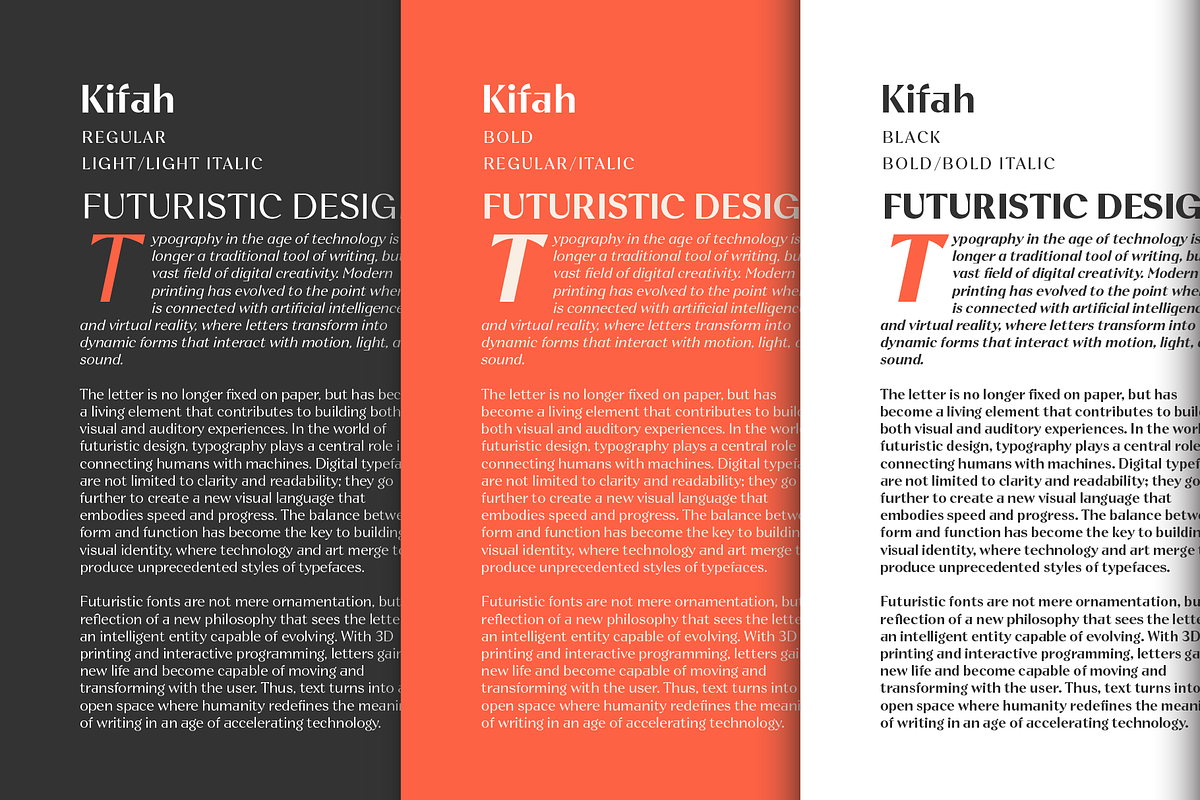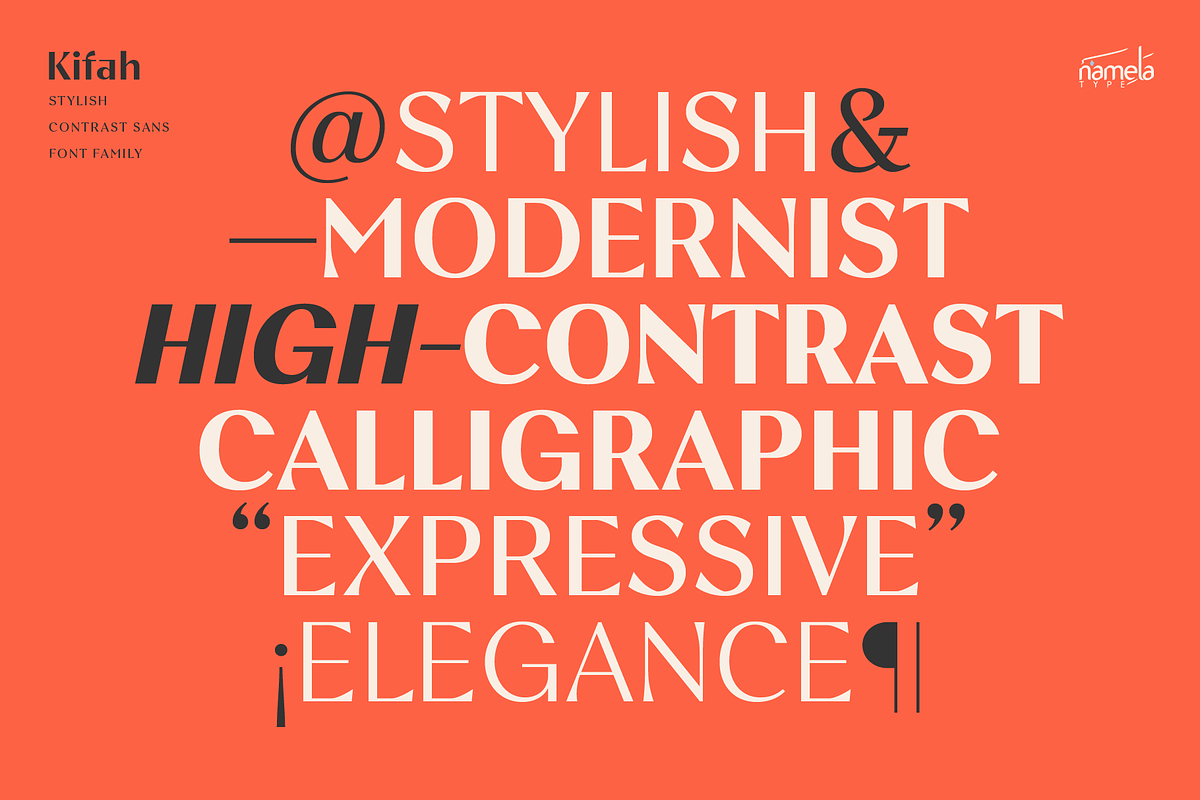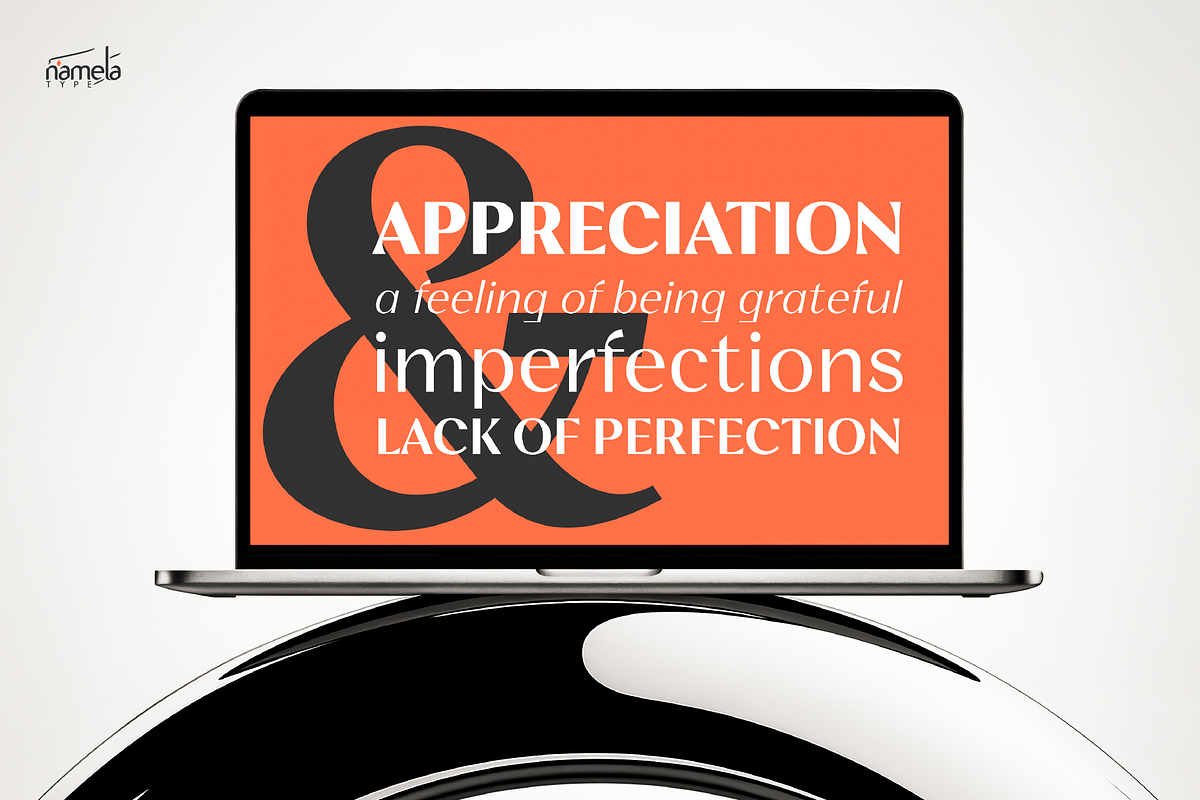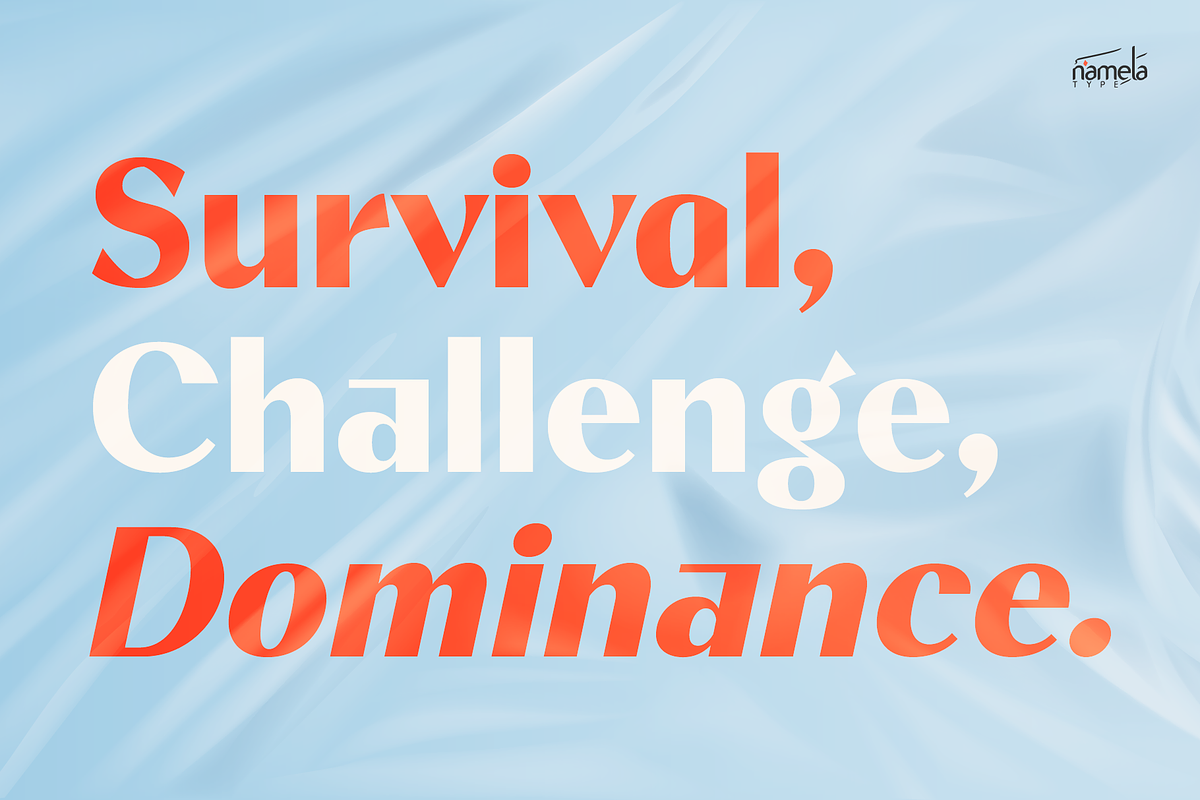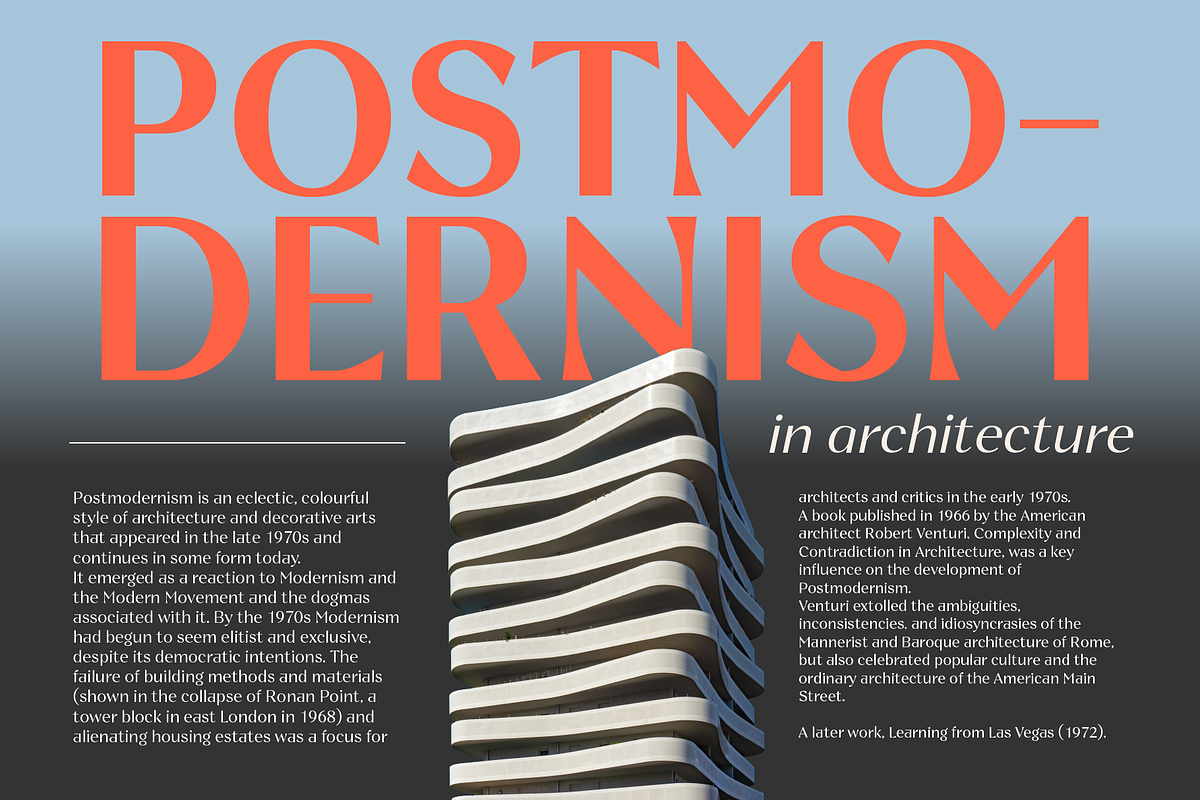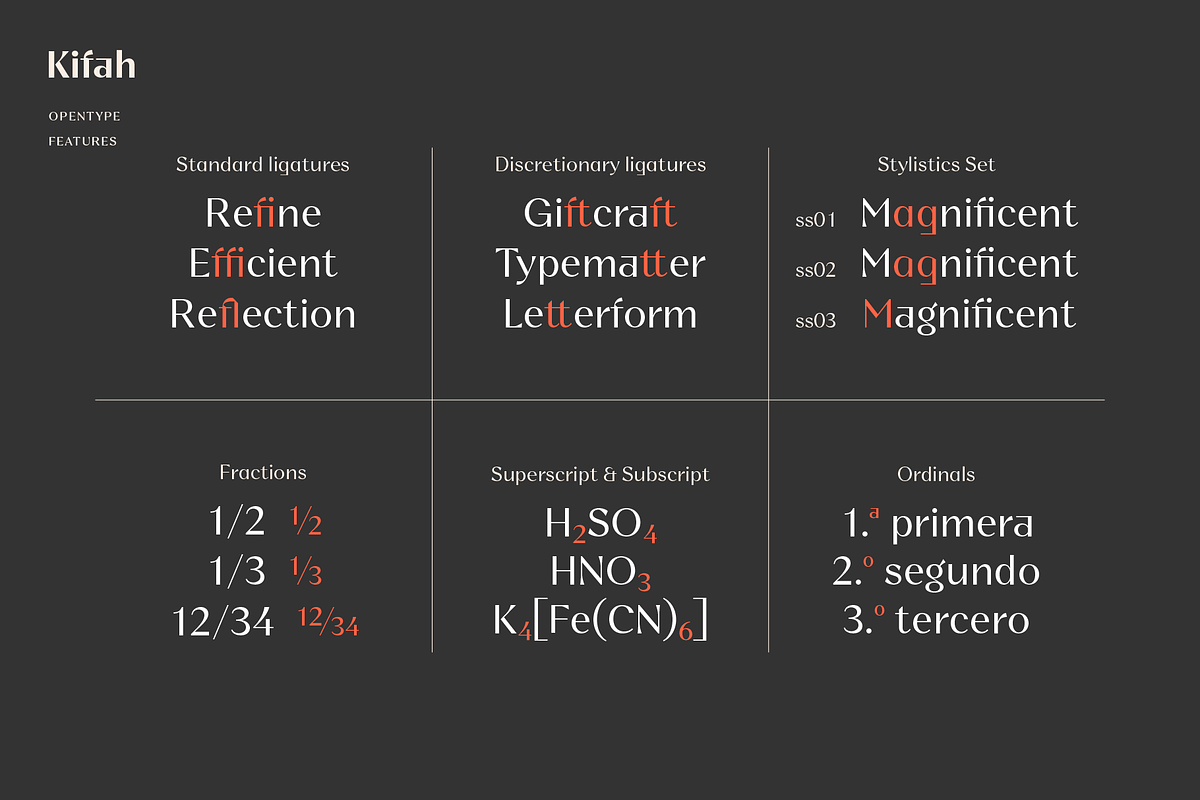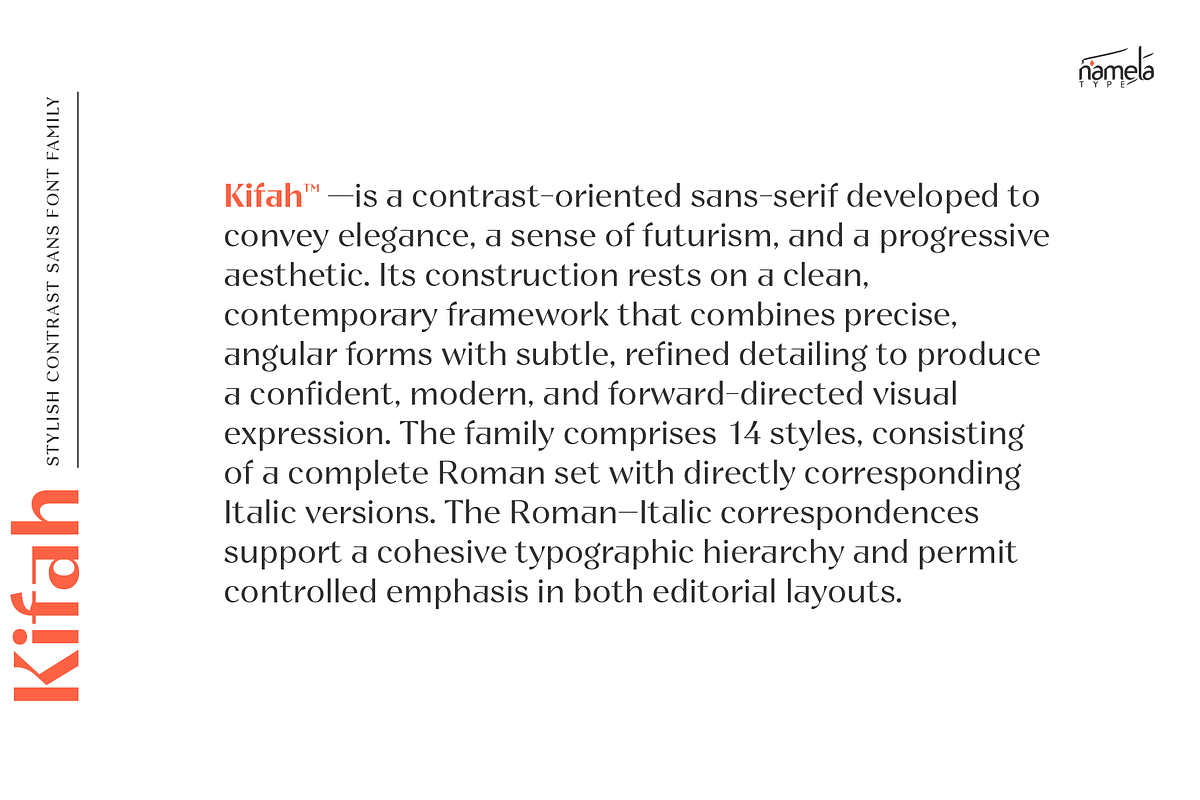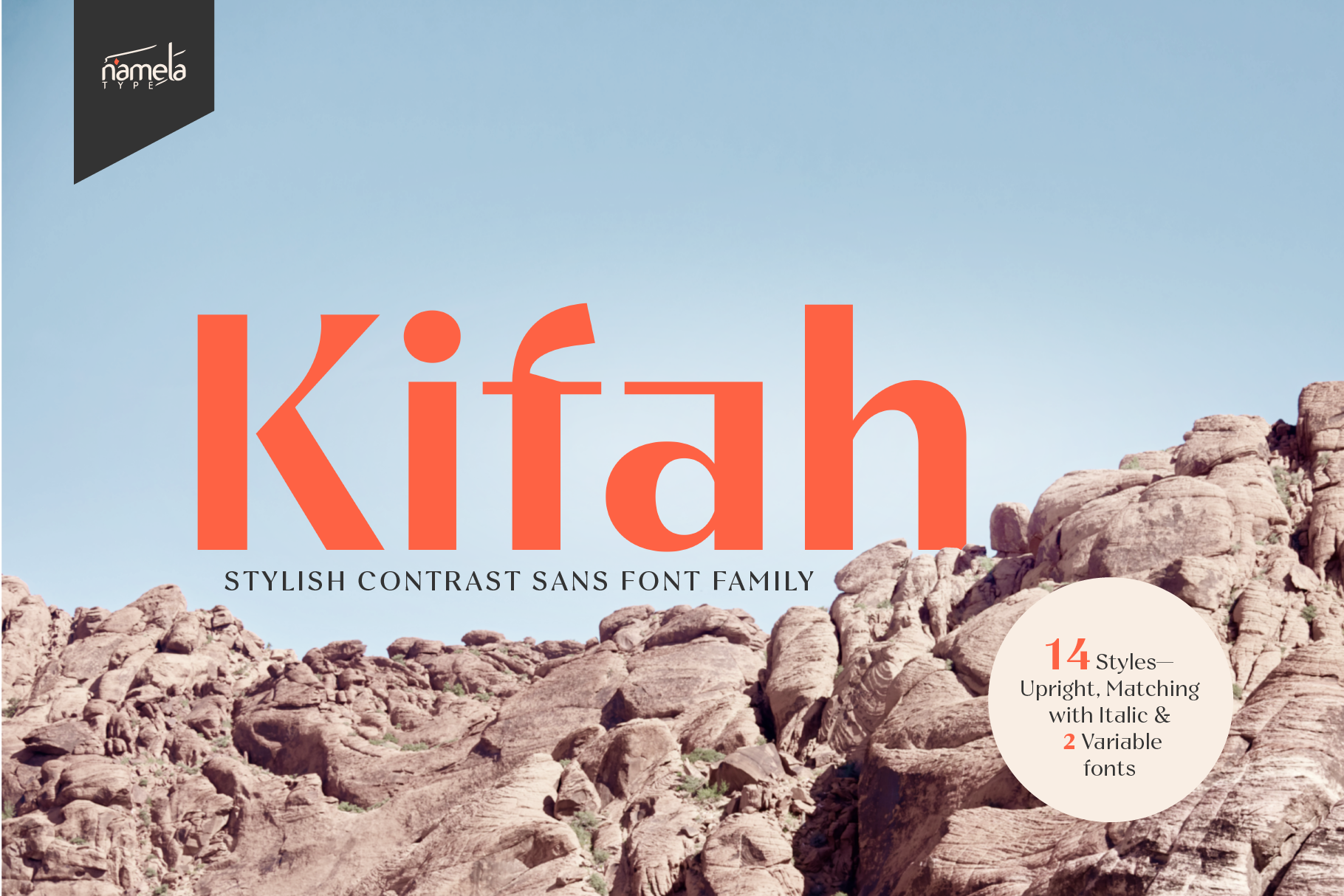
Kifah, Stylish Contrast Sans Font
Kifah Stylish Contrast Sans Font developed to convey elegance, a sense of futurism, and a progressive aesthetic. Its construction rests on a clean, contemporary framework that combines precise, angular forms with subtle, refined detailing to produce a confident, modern, and forward-directed visual expression.
Kifah Stylish Contrast Sans Font’s family comprises 14 styles, consisting of a complete Roman set with directly corresponding Italic versions. The Roman–Italic correspondences support a cohesive typographic hierarchy and permit controlled emphasis in both editorial layouts and digital interfaces.